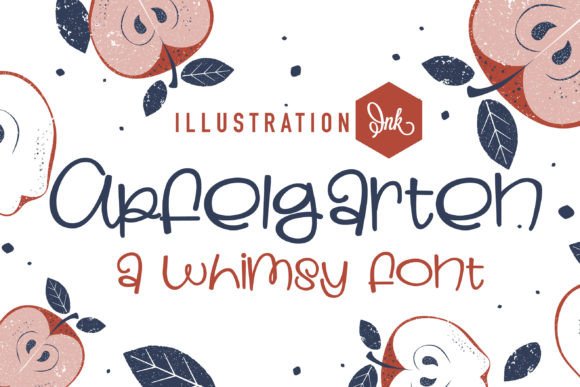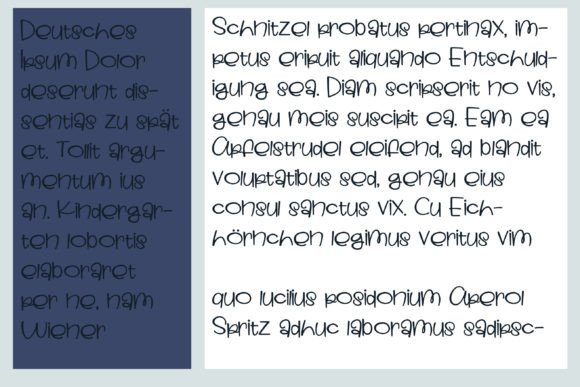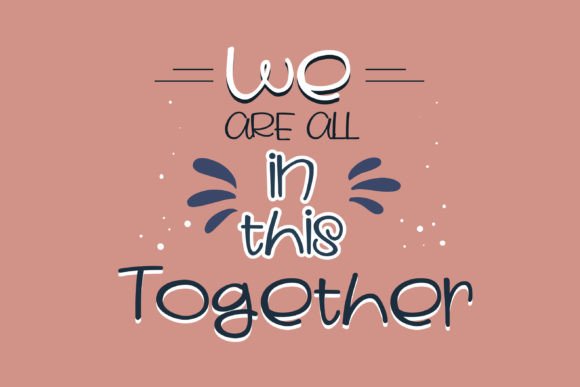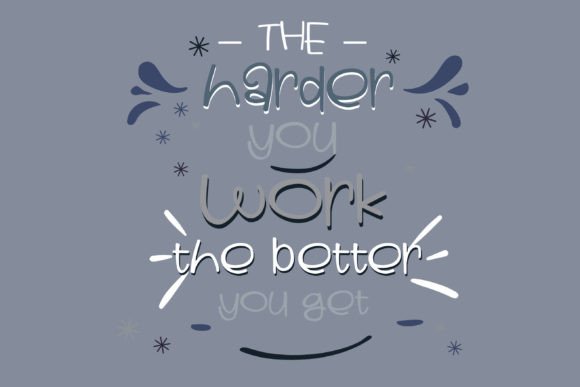
Apfelgarten Font: A Playful Sans Serif for DIY & Cricut Projects
About the Apfelgarten Font
Add a touch of class to your work with the Apfelgarten Font, a truly exceptional typeface. This hand-crafted sans serif is a fun and whimsical font with squat lettering and some script like elements.
Apfelgarten’s playful character makes it ideal for headlines, short text blocks on packaging, and branding elements where a whimsical touch is desired. It works well in children’s book illustrations or projects related to crafts, food, or artisanal products. However, its less-than-optimal readability makes it unsuitable for body text or UI elements requiring extensive reading.
Consider pairing Apfelgarten with a clean sans-serif like Montserrat for a balanced contrast, or a more structured serif like Playfair Display for a touch of classic elegance. A geometric sans-serif such as Futura could also provide a modern counterpoint.
The font projects a friendly, approachable personality; its hand-crafted feel gives it a sense of warmth and authenticity.
Apfelgarten Font Usage Examples
Apfelgarten Font Example